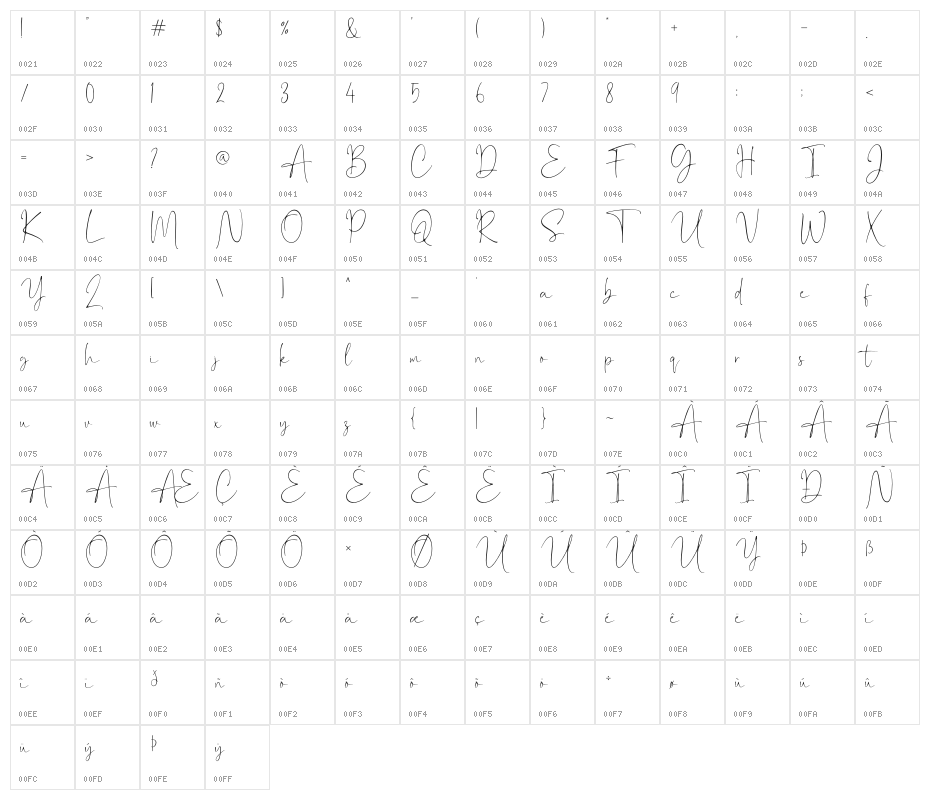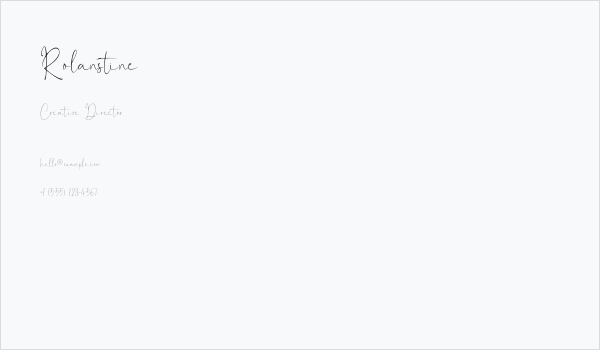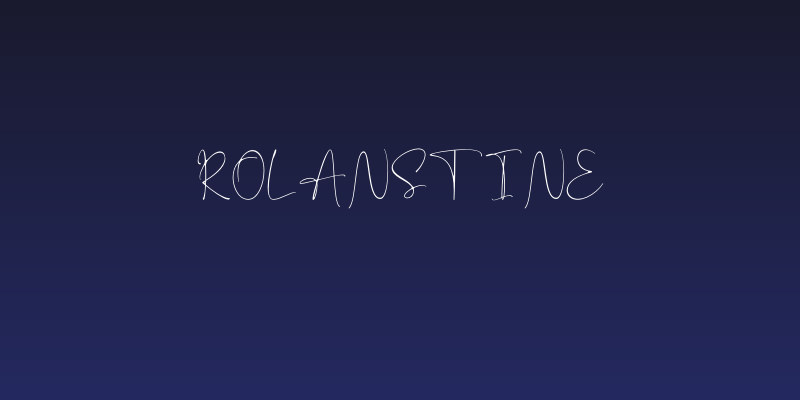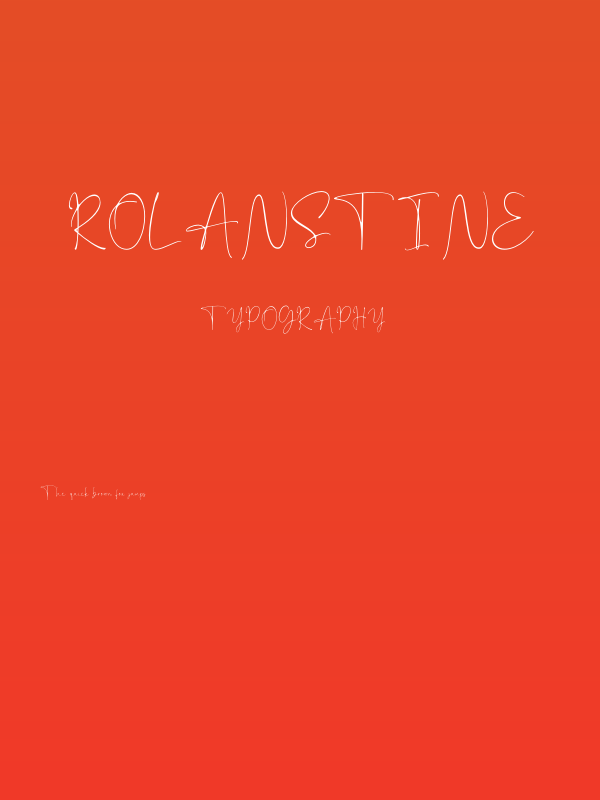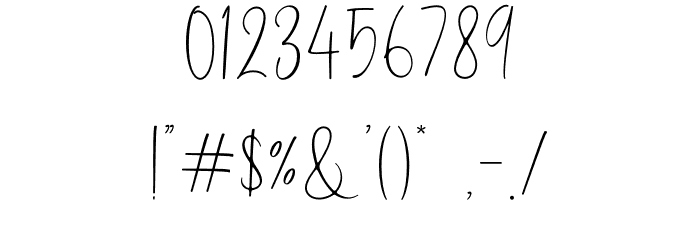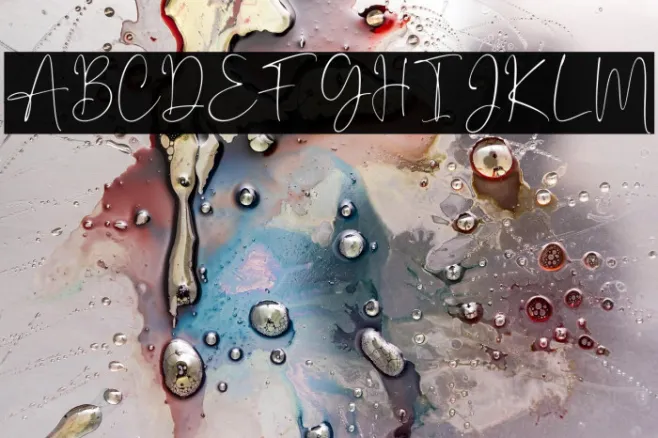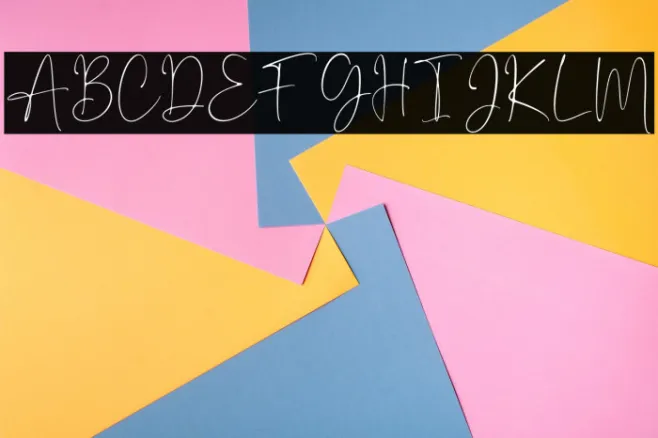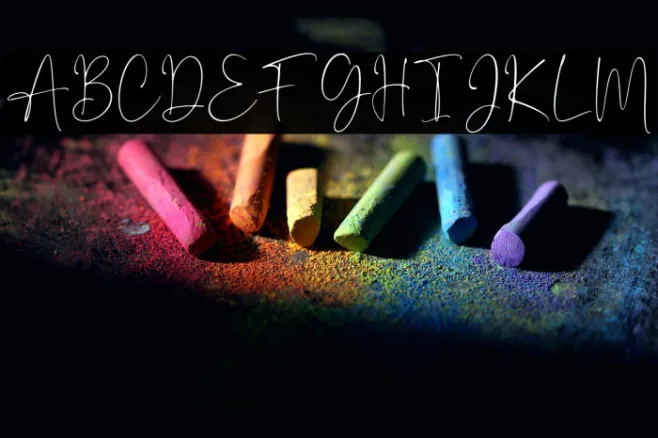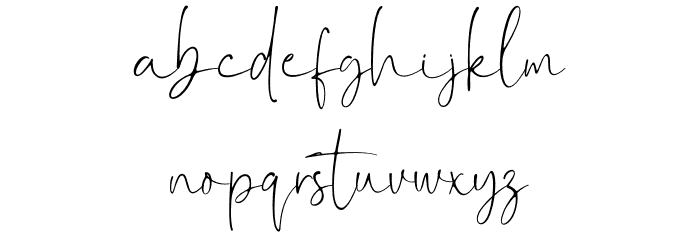
Rolanstine Font
Rolanstine Description
This font exudes a whimsical and elegant charm with its handwritten style. The letters are characterized by their fluid, cursive strokes, giving a sense of movement and grace. The uppercase letters are tall and slender, while the lowercase letters maintain a consistent flow, enhancing readability. The numbers and special characters are designed to complement the alphabet, maintaining the same airy and delicate aesthetic. This font is perfect for adding a personal touch to any project, with its unique blend of sophistication and playfulness.